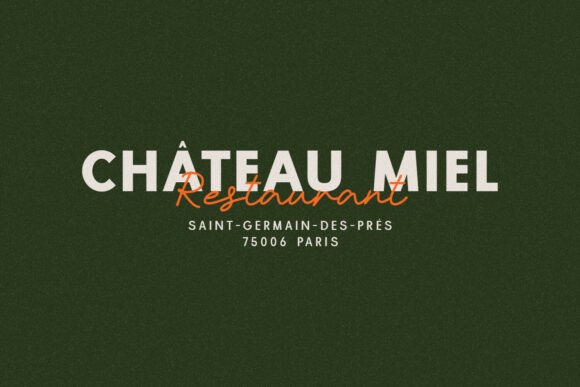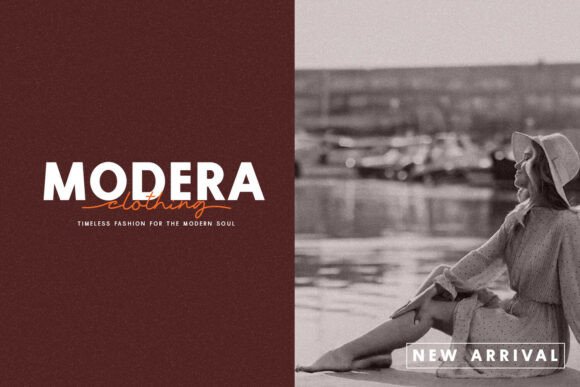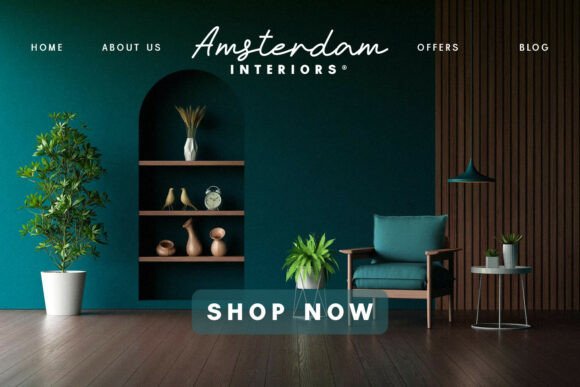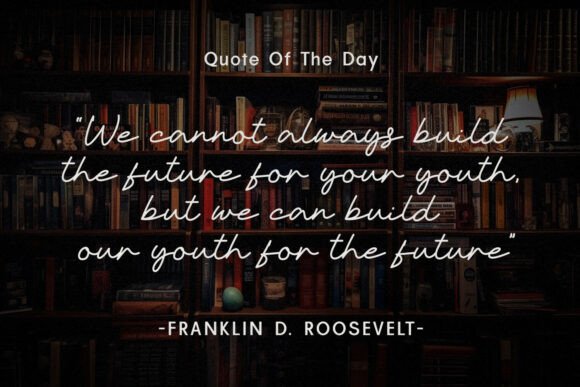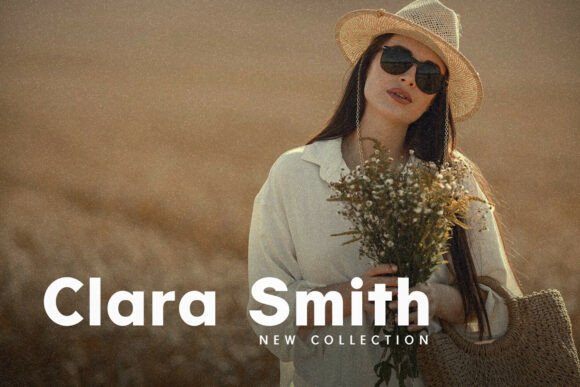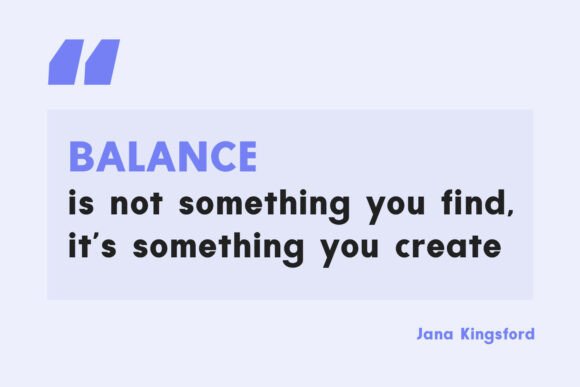
Meet Your New Design BFF: Celvia Font
Have you ever stared at a blank canvas, desperately searching for the perfect font combination to bring your design to life? We’ve all been there. It’s the moment when creativity hits a wall, and you wish there was a magic font that would make everything look effortlessly stylish. Well, say hello to Celvia Font, the modern font duo that’s about to become your new design best friend.
Celvia Font is a beautifully crafted combination of a soft handwritten script and a bold, clean sans serif. Its unique pairing is designed to bring contrast and harmony to your designs, making it perfect for a wide range of creative projects. Whether you’re a seasoned designer or a hobbyist, Celvia Font offers the flexibility and charm to elevate your visuals with sophistication, making it a valuable addition to any design arsenal.
Celvia Font Key Features
- Unique Characteristics: Celvia Font features a unique blend of modern and elegant design elements, including subtle curves and geometric shapes, making it perfect for creating visually appealing and sophisticated designs.
Celvia Font Review
Initially, I was drawn to Celvia Font due to its clean and modern aesthetic. ✨ The font’s sleek lines and minimalistic feel make it perfect for a wide range of applications, from editorial to corporate branding. ✨ The font’s weight system is also well-executed, offering a variety of styles to suit different design needs.
However, there are a few limitations to consider. ⚠️ One of the main drawbacks is the font’s limited language support. ⚠️ This may be a concern for designers working on international projects, as Celvia Font does not cover a broad range of languages. ⚠️ Additionally, the font’s x-height could be improved, as it may appear slightly inconsistent in certain contexts.
Overall, I would give Celvia Font 3.5 out of 5 stars. While it excels in many areas, its limitations prevent it from being a top-tier choice. If you’re looking for a clean and modern font for a specific project, Celvia Font may be a good option. However, if you require extensive language support or a more robust font system, you may want to consider alternative options.
- Modern and clean aesthetic
- Well-executed weight system
- Wide range of applications
- Perfect for editorial and corporate branding
Limits:
- Limited language support
- Inconsistent x-height in certain contexts
Tips for Getting the Most Out of Celvia Font
For the best results, use the Celvia Font in combination with bold or italic styles to create visual interest. Experiment with different font sizes and colors to enhance the overall design.
The Celvia Font is ideal for use in branding, marketing materials, and digital designs. It’s particularly effective for creating modern and sleek logos, business cards, and social media graphics.
Alternatives to Celvia Font
Open Sans is a popular sans-serif font that is highly legible and versatile. It is suitable for a wide range of applications, including digital products, print materials, and signage. When to use: For digital products, websites, and applications where readability is crucial.
Comparison: Open Sans has a similar clean and modern feel to Celvia Font, but it is more versatile and has a larger character set. It is also more widely supported and has better font rendering on various devices.